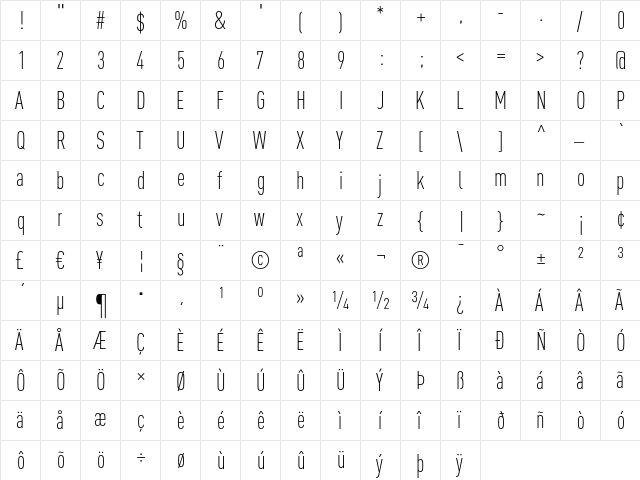
DINCond-Light Regular Font Preview
Design Context for DINCond-Light Typeface
DINCond-Light offers clean, dependable letterforms without strong stylistic allegiance, making it a practical choice for designers who need flexibility. Its slender proportions lend an understated elegance to any composition. The condensed width makes it efficient for tight spaces without sacrificing legibility.
Pro Tip: Pair DINCond-Light with a font of contrasting weight or personality to build a more expressive typographic hierarchy.